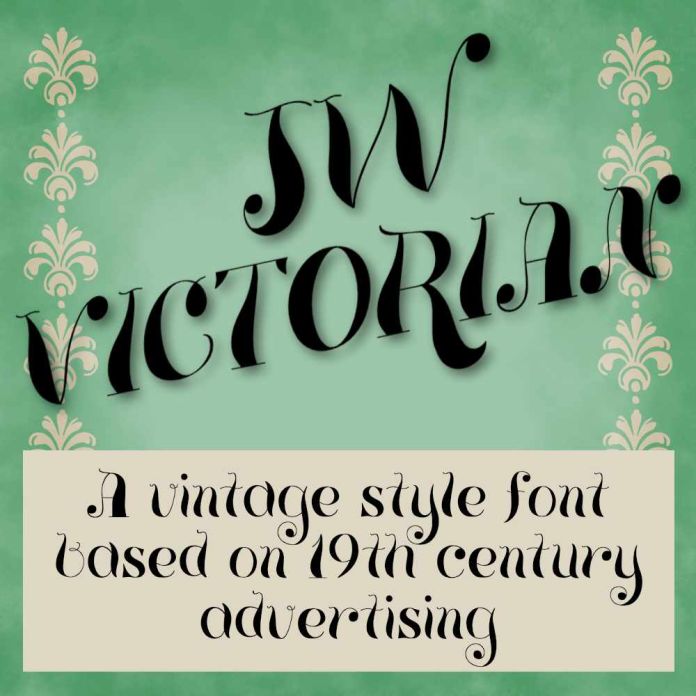
JW Victorian font is an elegant and intricate decorative font design inspired by Victorian-era typography. Its intricate detailing and ornate flourishes give it a vintage and sophisticated look. Perfect for adding a touch of old-world charm to invitations, posters, and other design projects.